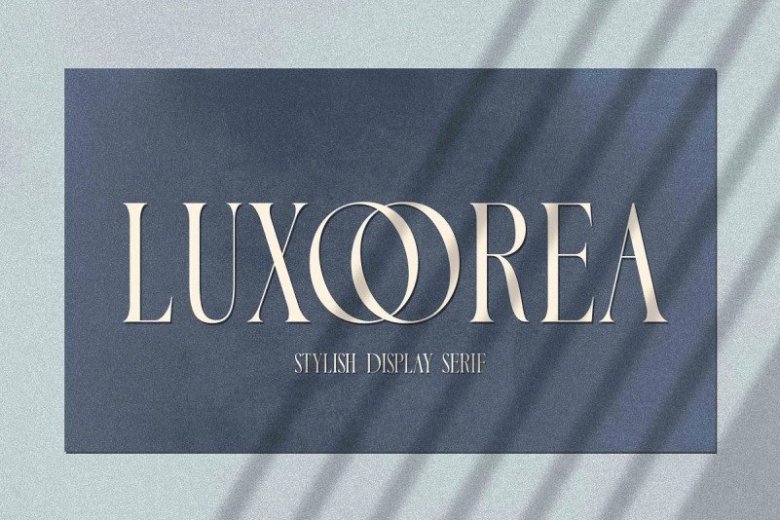
Luxoorea Font
Luxoorea Font is an elegant serif typeface created by Almarkha Type with plenty of features. inspired by the famous minimalist logo perfect for the purposes of designing templates, brochures, videos, advertising branding, logos and more.